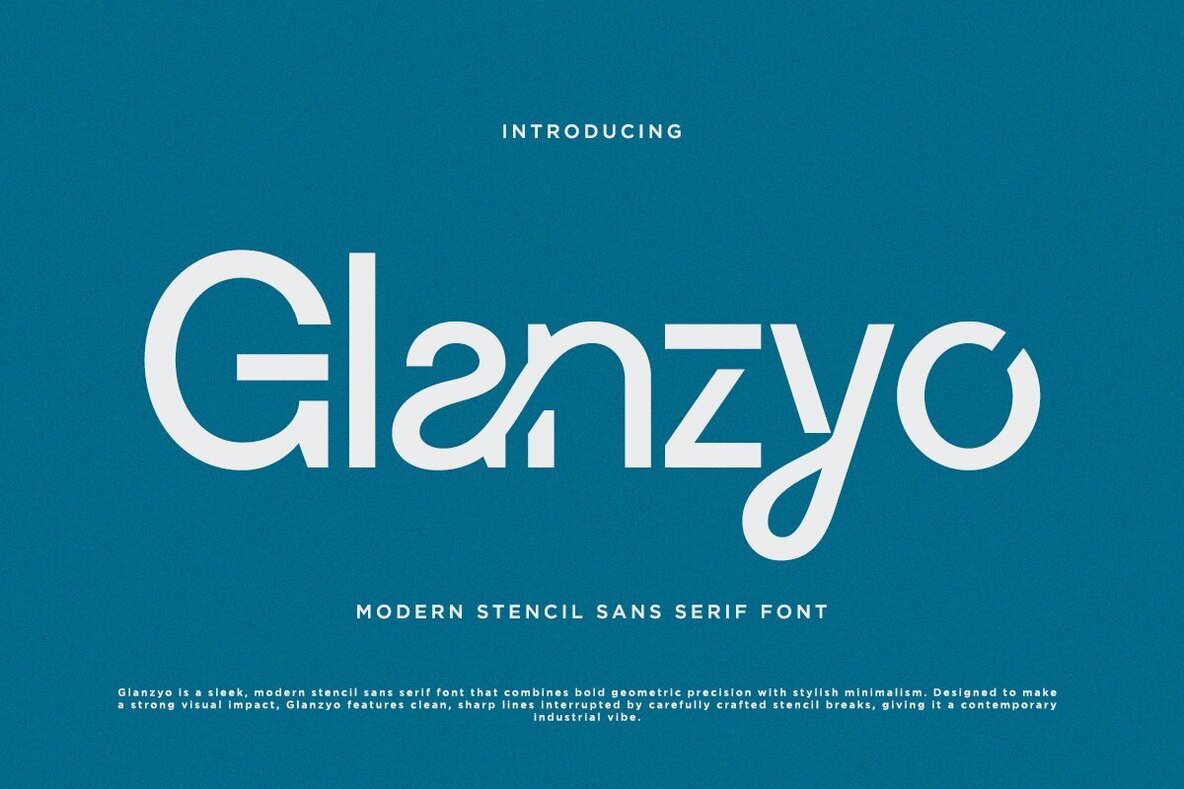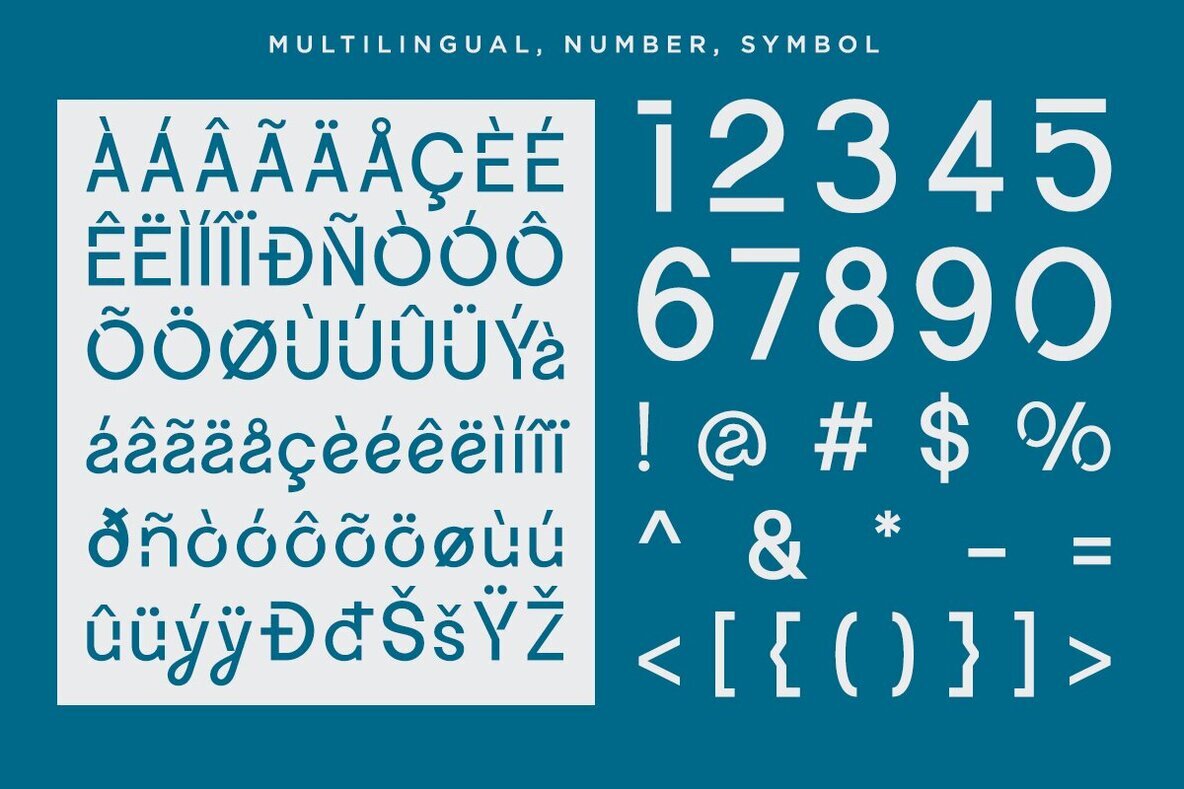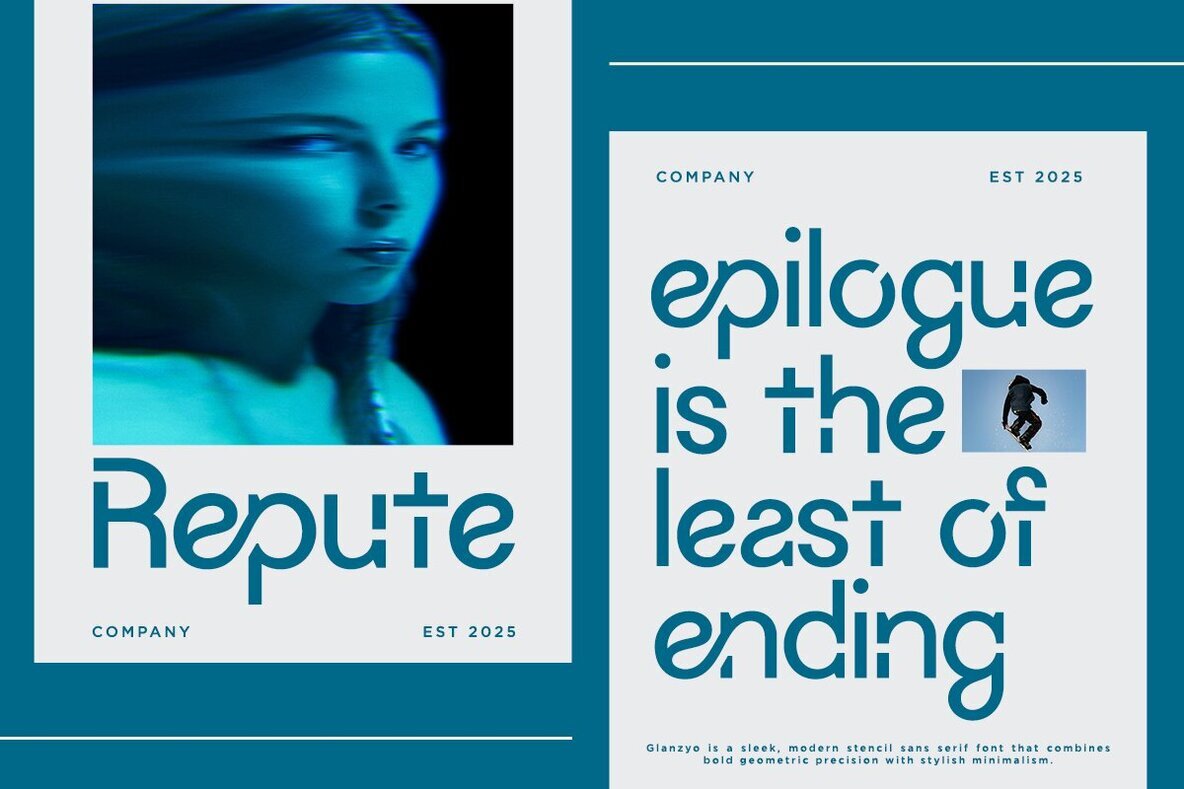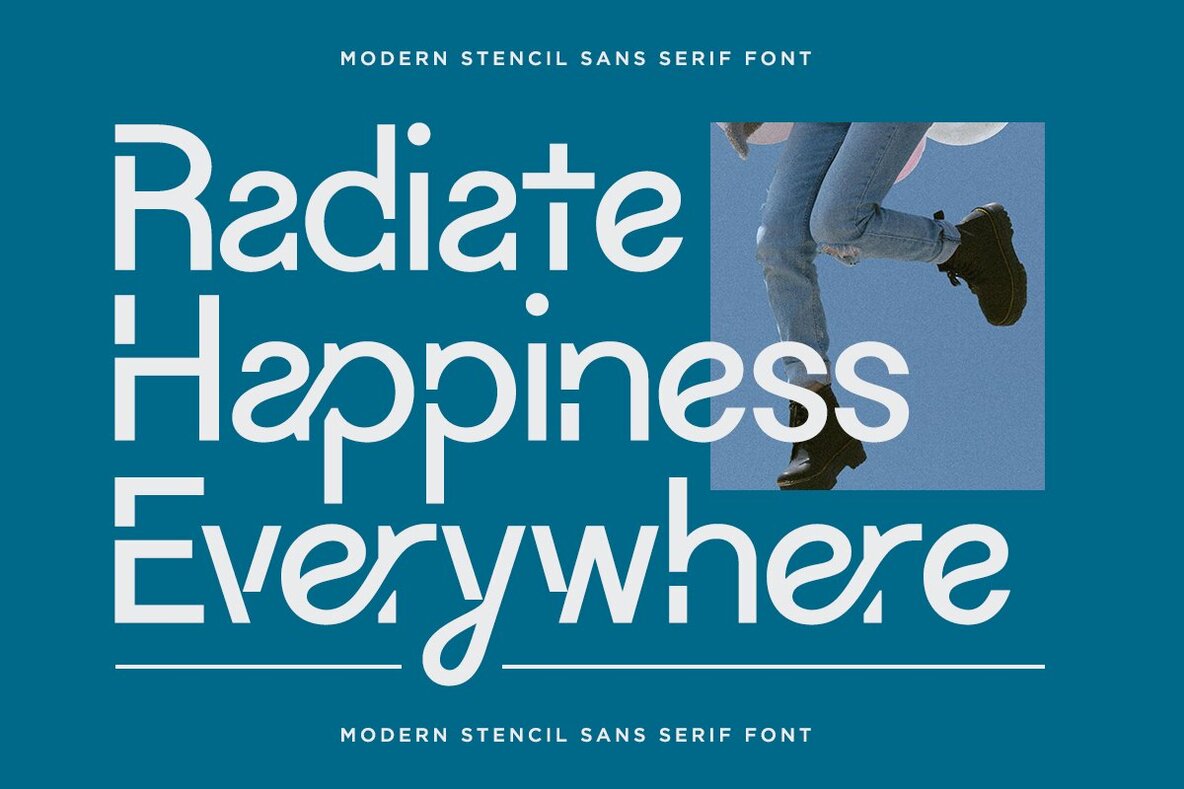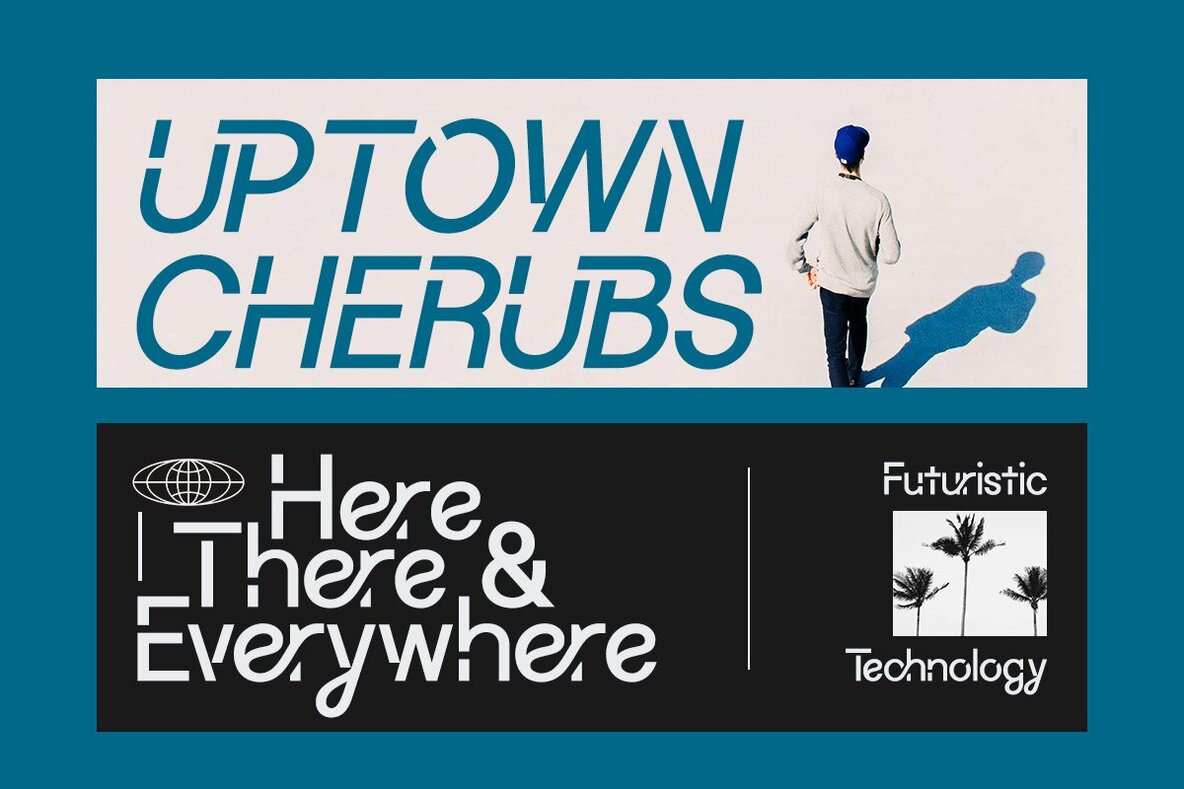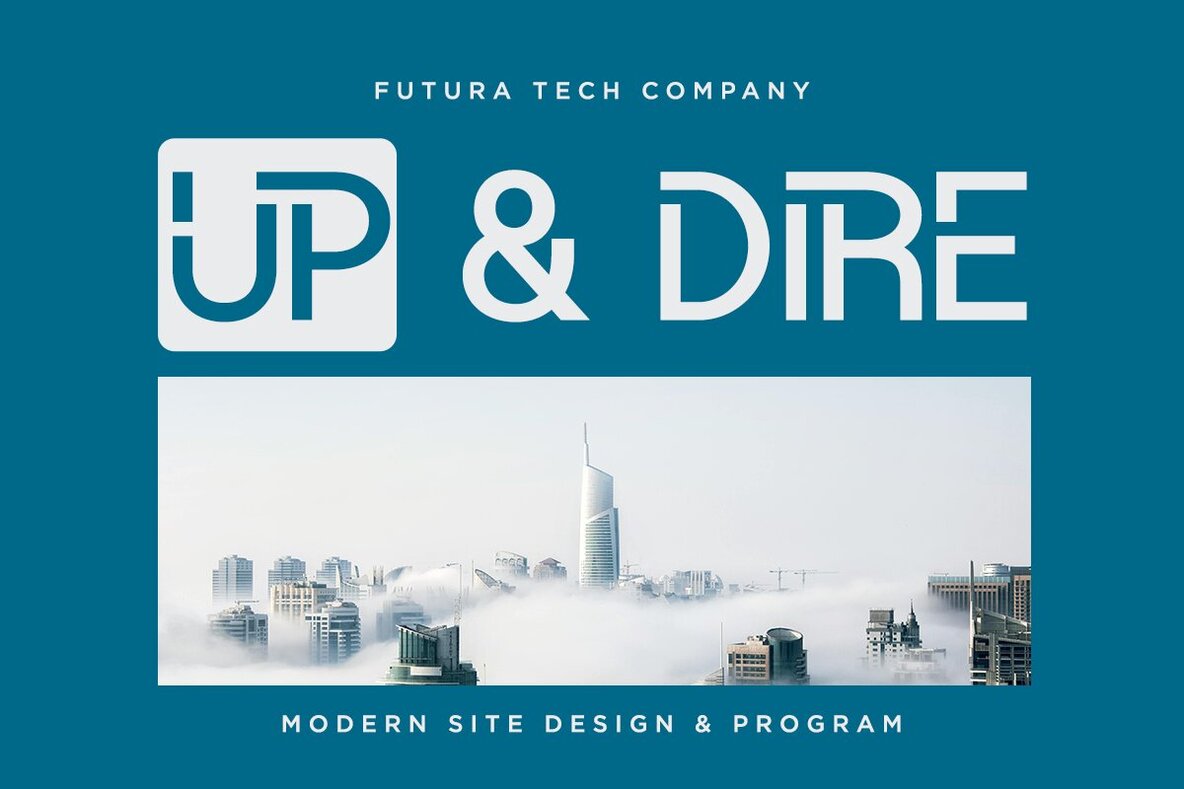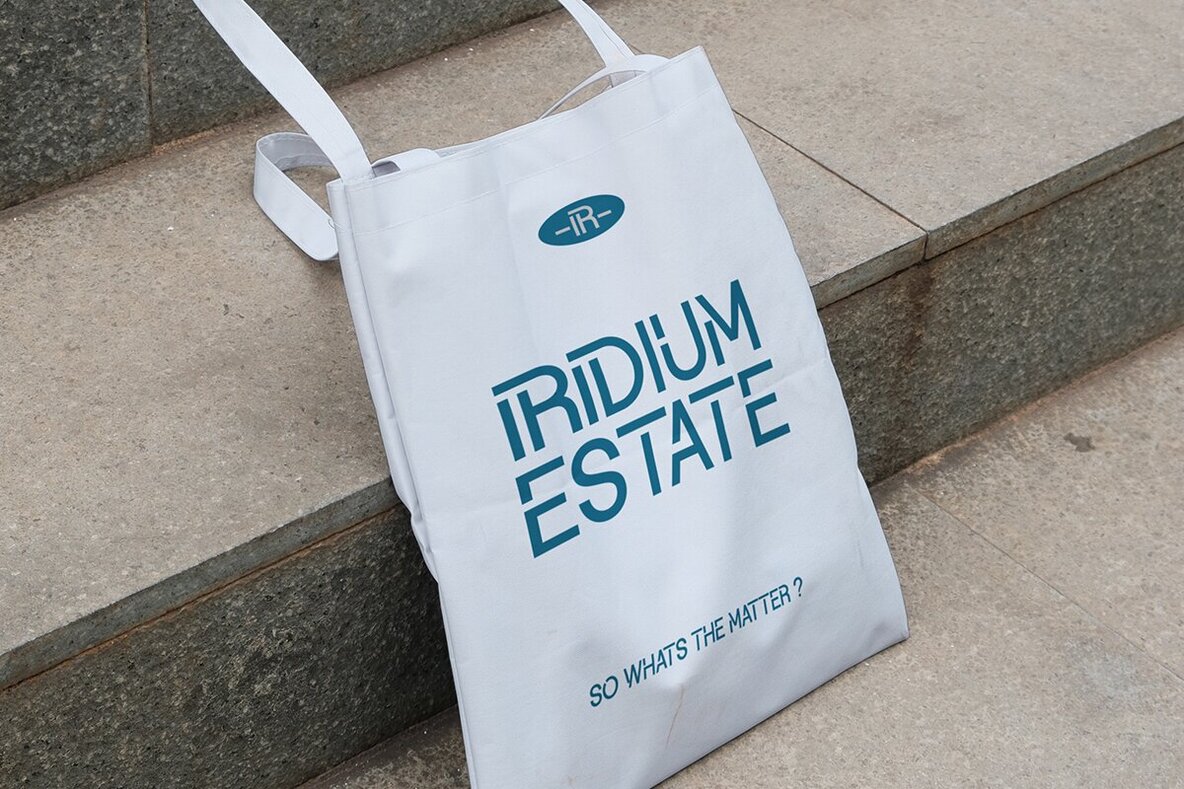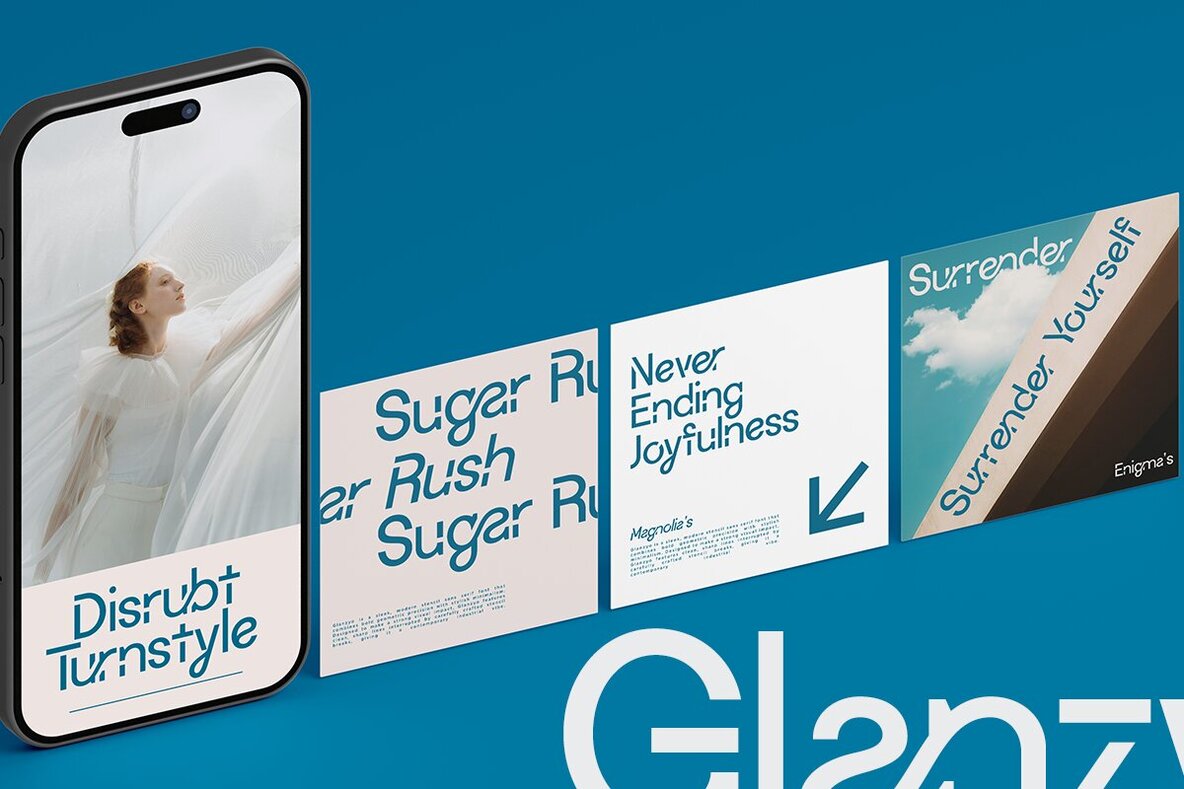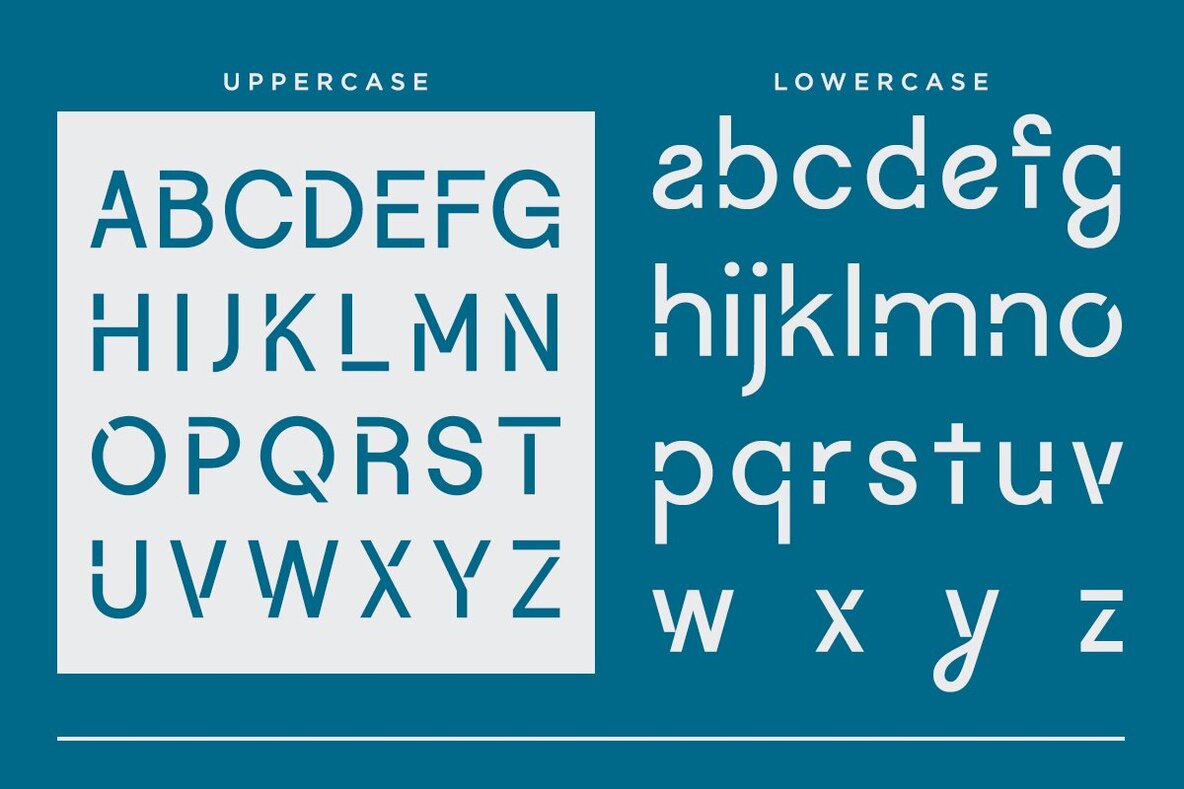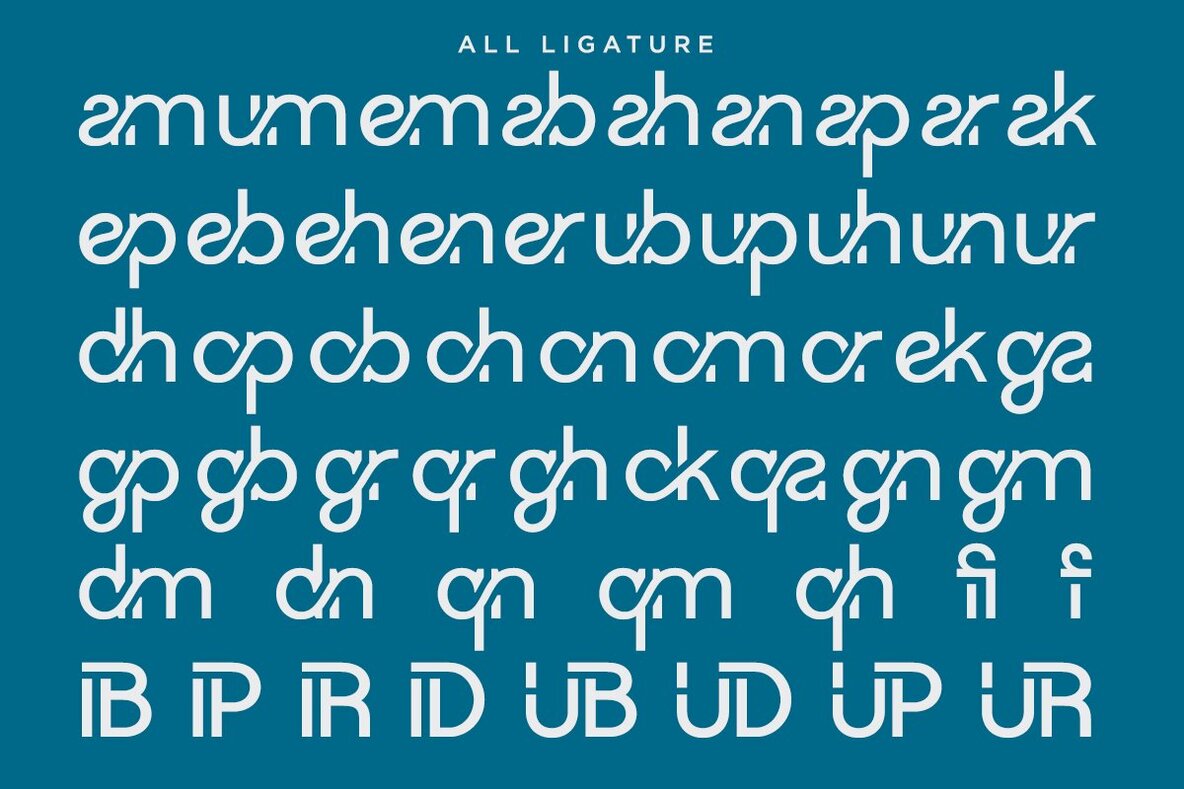
Glanzyo Font
Glanzyo stands out with its geometric stencil design, defined by clean lines and uniform stroke widths. It presents a refined tech-industrial feel, ideal for projects where clarity and presence are essential. Designed for modern branding, digital interfaces, and bold editorial headers, Glanzyo ensures every word is clear and impactful. The combination of sharp legibility and contemporary style supports forward-looking brands and sleek product identities. Rounded counters and balanced proportions give this typeface a harmonious, dependable appearance. Glanzyo complements a range of applications—from tech startups to innovative packaging—where a structured and trustworthy presentation matters. Its versatility elevates visual consistency while retaining a distinctive tone.Glanzyo Geometric Stencil Typeface